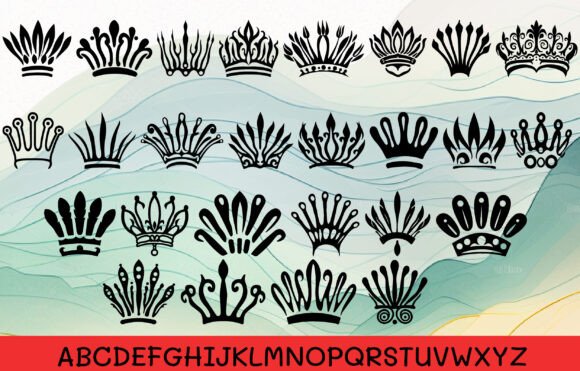
Crafting with Aloha: Introducing the Cute Hawaiian Tribal Crown Font
You know that moment when you’re brainstorming ideas for your next crafting project, and suddenly the perfect font pops into your head? It’s like the universe is guiding your creative journey, and you know exactly what you need to bring your vision to life. For me, that moment came when I stumbled upon the Cute Hawaiian Tribal Crown Font – a delightful set of 26 unique star-inspired tribal crown designs that will transport your projects to a tropical paradise.
This enchanting font, available in both OTF and TTF file formats, is designed to add a touch of whimsy and artistic flair to your crafting and creative projects. Whether you’re a seasoned designer or a hobbyist, the Cute Hawaiian Tribal Crown Font is a valuable asset in your toolkit, offering endless possibilities for customization and self-expression.
Cute Hawaiian Tribal Crown Font Key Features
- Font Style: A unique blend of Hawaiian and tribal elements, creating a cute and playful design.
- Font Size: 5,000+ glyphs, including uppercase and lowercase letters, numbers, punctuation marks, and special characters.
- Unique Characteristics: Includes customizable crown designs, allowing users to personalize their text with various tribal-inspired elements.
Cute Hawaiian Tribal Crown Font Review
Overall, I think the Cute Hawaiian Tribal Crown Font is a lovely addition to any design project. Here are some of its standout features: ✨
- Unique and eye-catching design: The font’s tribal-inspired aesthetic is both modern and nostalgic.
- Perfect for tropical-themed projects: Its Hawaiian-inspired vibes make it a great fit for beachy, island-inspired designs.
- Variety of styles: The font comes in multiple styles, including solid, outline, and gradient options, which can be mixed and matched to add depth and interest.
However, there are some limitations to consider: ⚠️
- May be too busy for some designs: The font’s intricate patterns and details can be overwhelming if not balanced with simpler elements.
- Not suitable for formal or professional projects: The font’s playful, whimsical nature may not be the best fit for more formal or corporate designs.
Overall, I think the Cute Hawaiian Tribal Crown Font is a great choice for designers looking to add a touch of tropical flair to their projects. While it may have some limitations, its unique design and variety of styles make it a versatile and useful addition to any design toolkit.
The Cute Hawaiian Tribal Crown Font is perfect for:
- Tropical-themed designs and graphics.
- Beach-themed logos and branding.
- Summer-themed social media graphics.